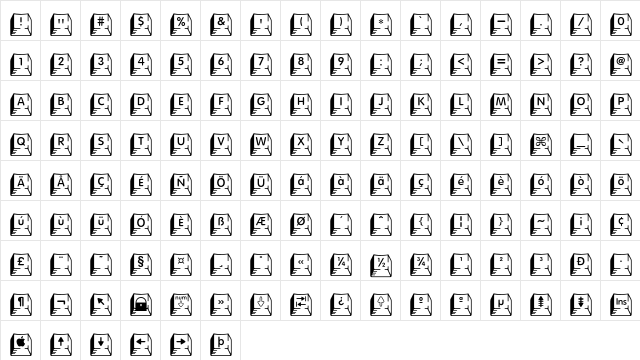
Keycaps Deluxe Regular
Design Context for Keycaps Deluxe Typeface
Keycaps Deluxe is a composed and adaptable typeface that performs quietly and consistently across a wide range of design contexts.
Pro Tip: Use Keycaps Deluxe in both headline and body roles to test its range before committing to a single application.